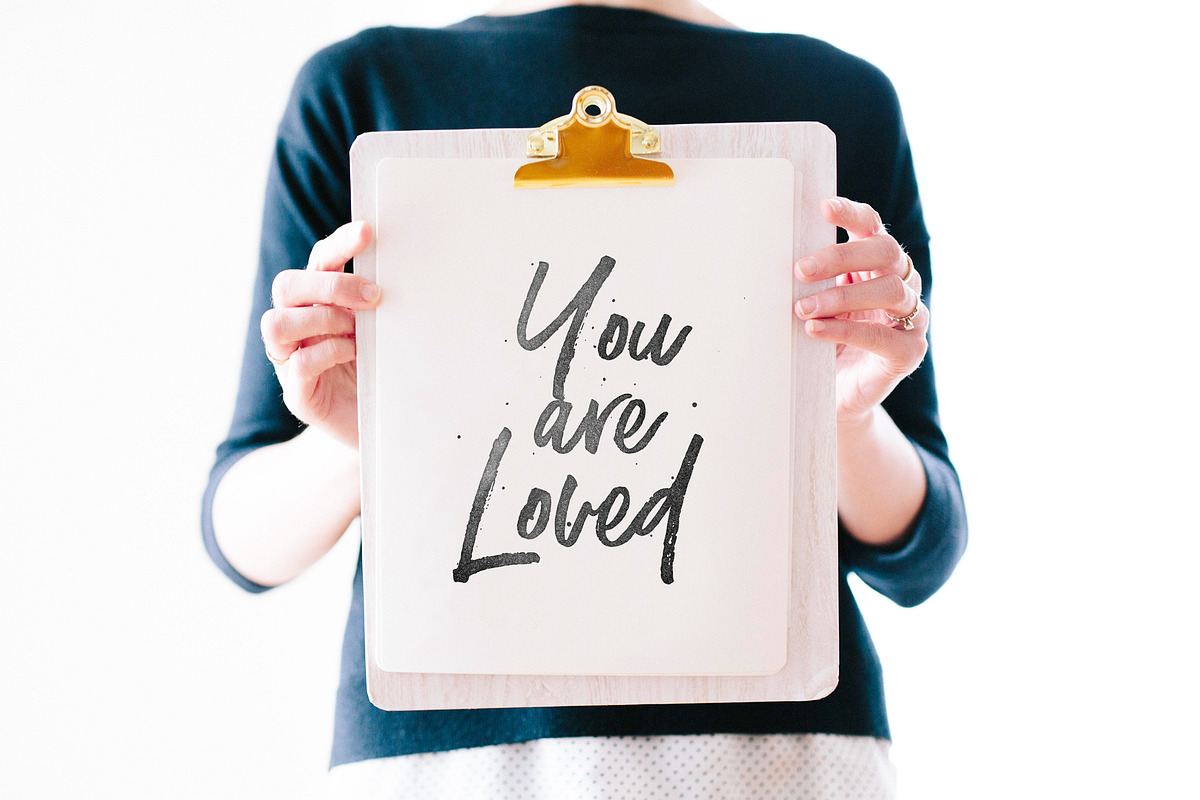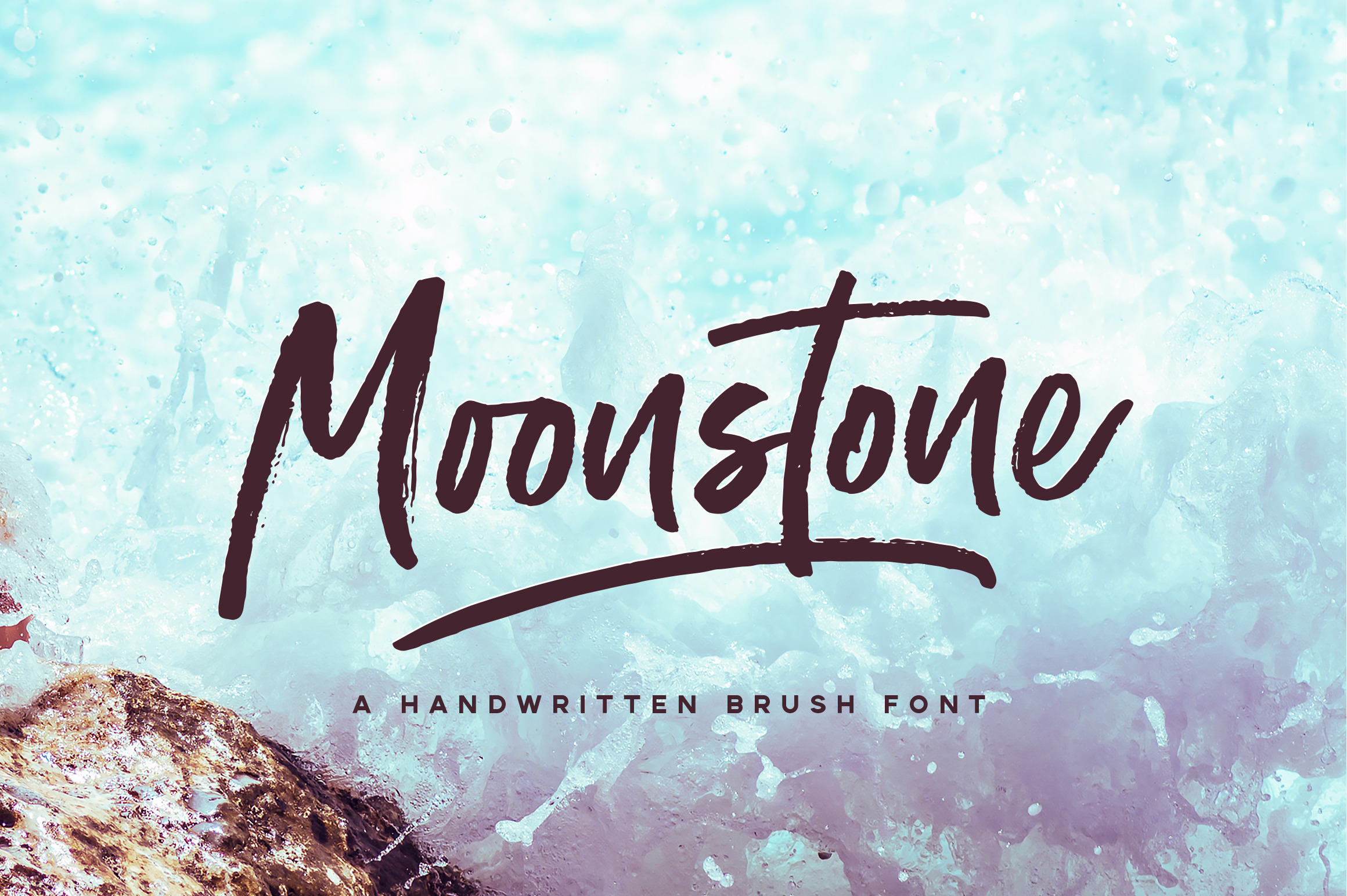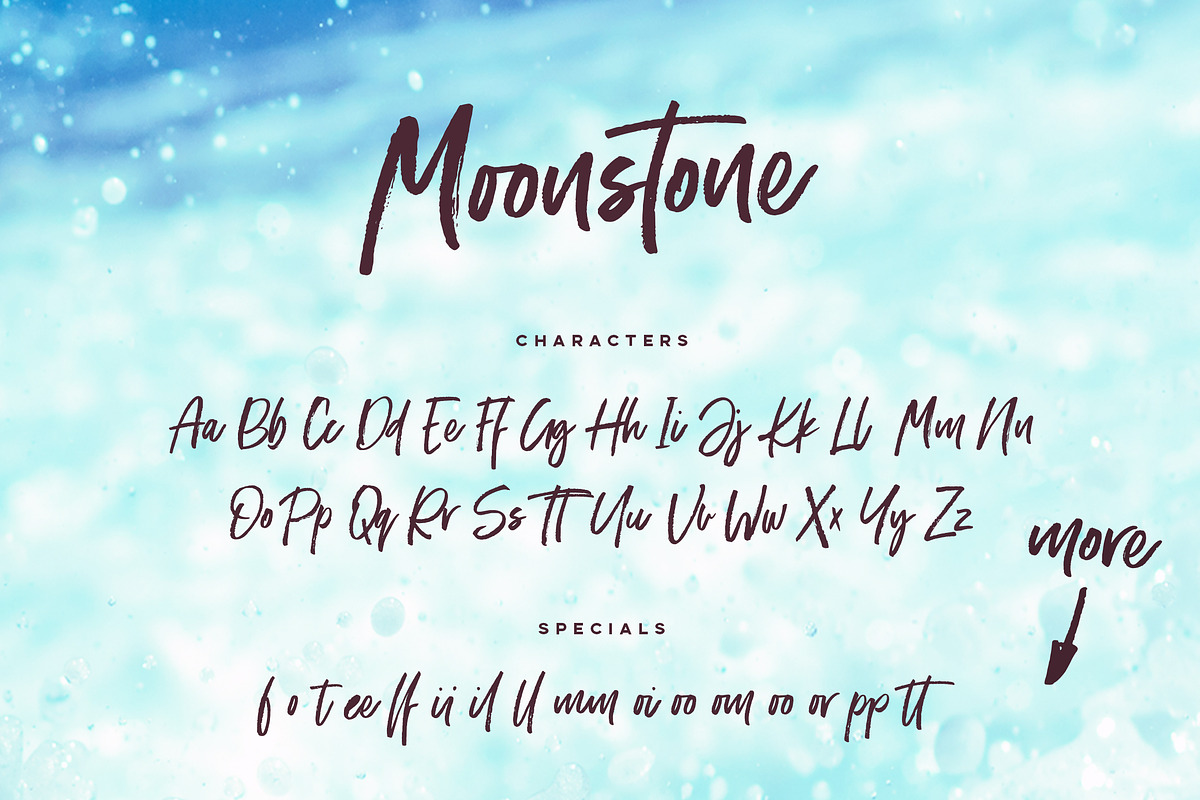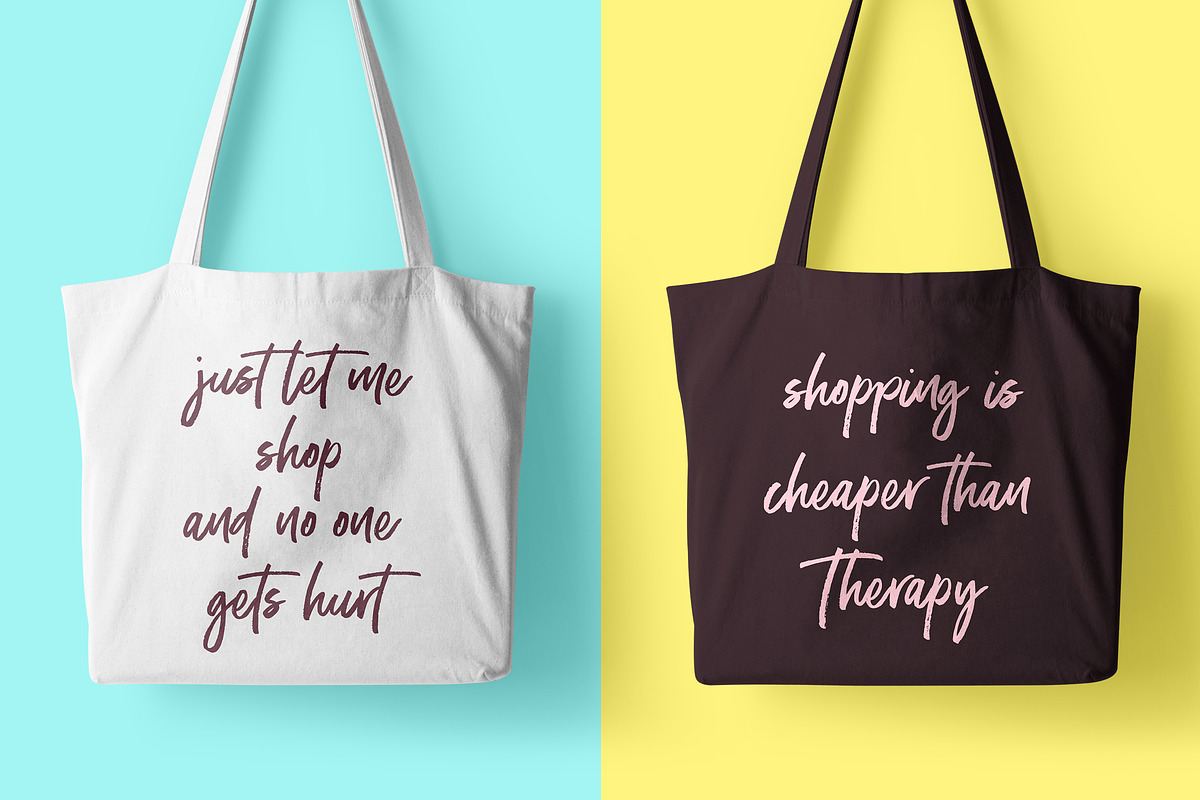
Moonstone Brush Font
Moonstone is a unique handwritten brush font. Its unique flow and style makes it perfect to use for prints, logos, signatures, quotes, badges, labels, packaging design, blog headlines or simply use it to add a fancy text on a photo.
Moonstone comes with upper and lowercase Basic Characters, Numbers, Marks and Punctuation. Diacritics are also available for Western and Central European Languages. As a feature Moonstone also comes with Ligatures and Swashes to make your text pop.